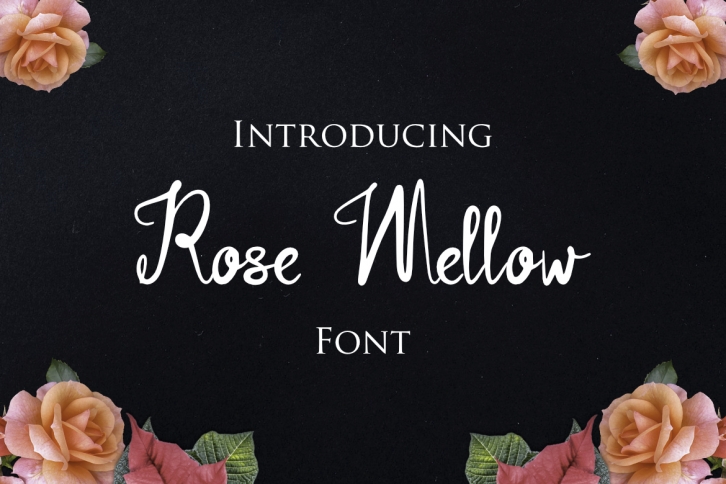
Rose Mellow is a gorgeous font that was realeased on April 26, 2018. The font can be used in many style contexts and design environments. Perfect for invitations, magazines, websites, logos, and more! It was designed by LebahStudio and the file size is 18.1 MB. Thanks for checking out this font!